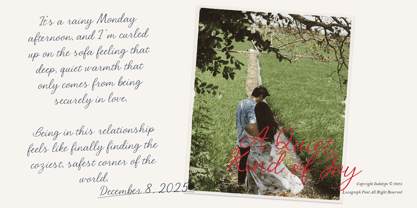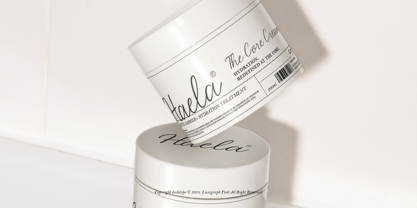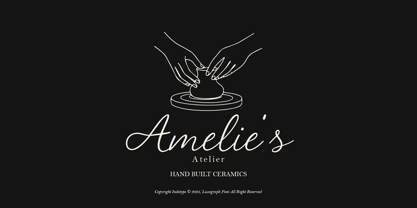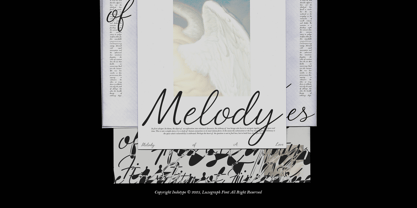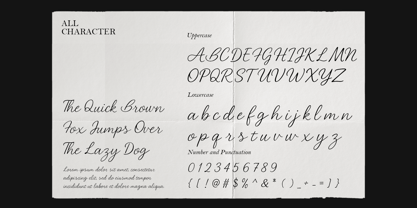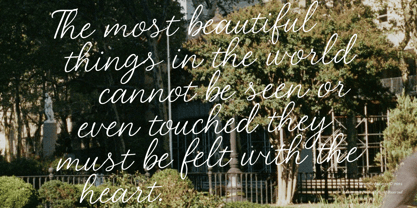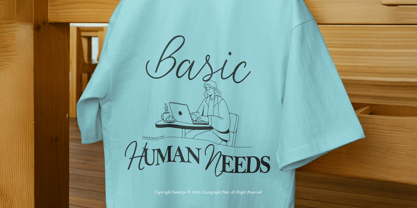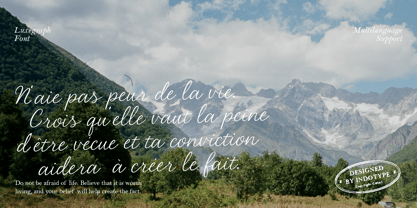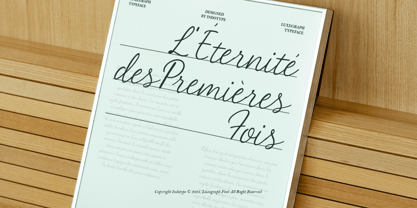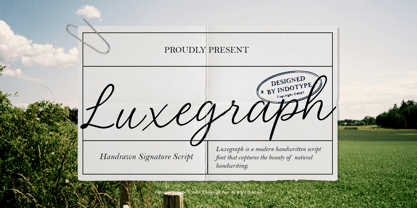
IT Luxegraph
von Indotype
Die Schriftfamilie IT Luxegraph wurde von Dede Kurniawan entworfen und von Indotype veröffentlicht. IT Luxegraph enthält 1 Stile. Mehr über diese Familie
Luxegraph is an elegant and fluid handwritten script font that captures the effortless beauty of a personal signature. Designed with natural variations, graceful connections, and authentic stroke textures, it mimics the intimate feel of pen-on-paper, adding a touch of human sophistication to any design. This modern script strikes the perfect balance between casual charm and refined elegance, making it feel both personal and premium. Ideal for branding that values authenticity and a human touch, Luxegraph elevates logos, product packaging, social media quotes, wedding stationery, and personal projects. Its organic flow and carefully crafted letterforms ensure a look that is polished yet relatable, sophisticated yet approachable. Bring a signature level of style to your work with Luxegraph—the art of the personal touch, digitized. • Ideal for: Signature Logos, Luxury Product Packaging, Wedding Invitations, Social Media Graphics, Brand Quotes, Personal Branding. • Classification: Script, Handwritten, Signature, Display. • Attributes: Elegant, Fluid, Authentic, Personal, Sophisticated, Natural, Modern.